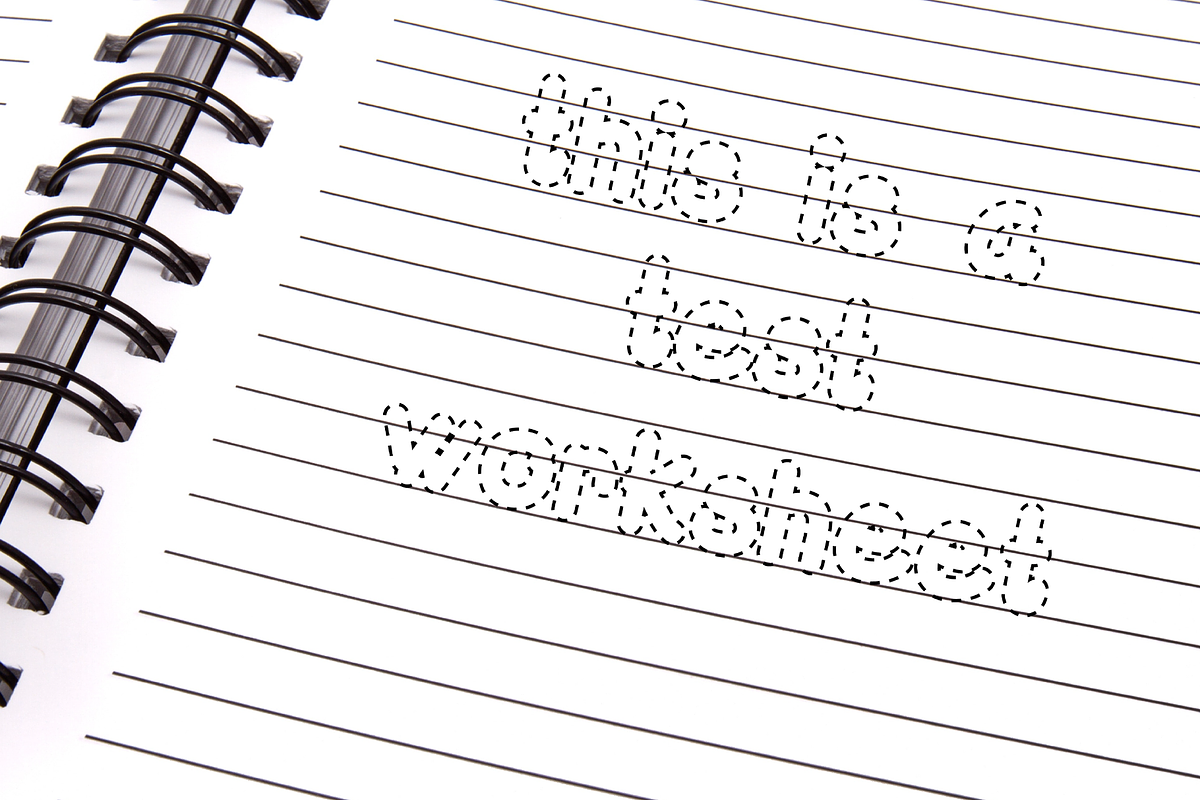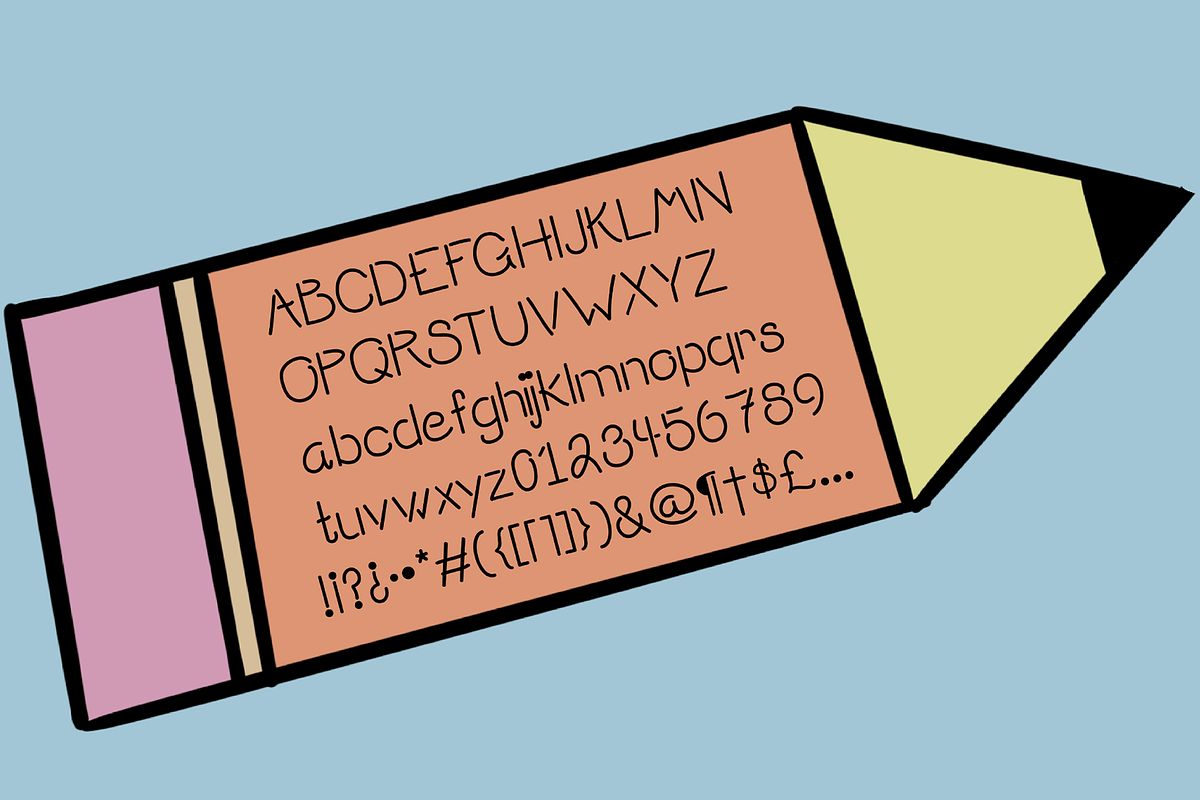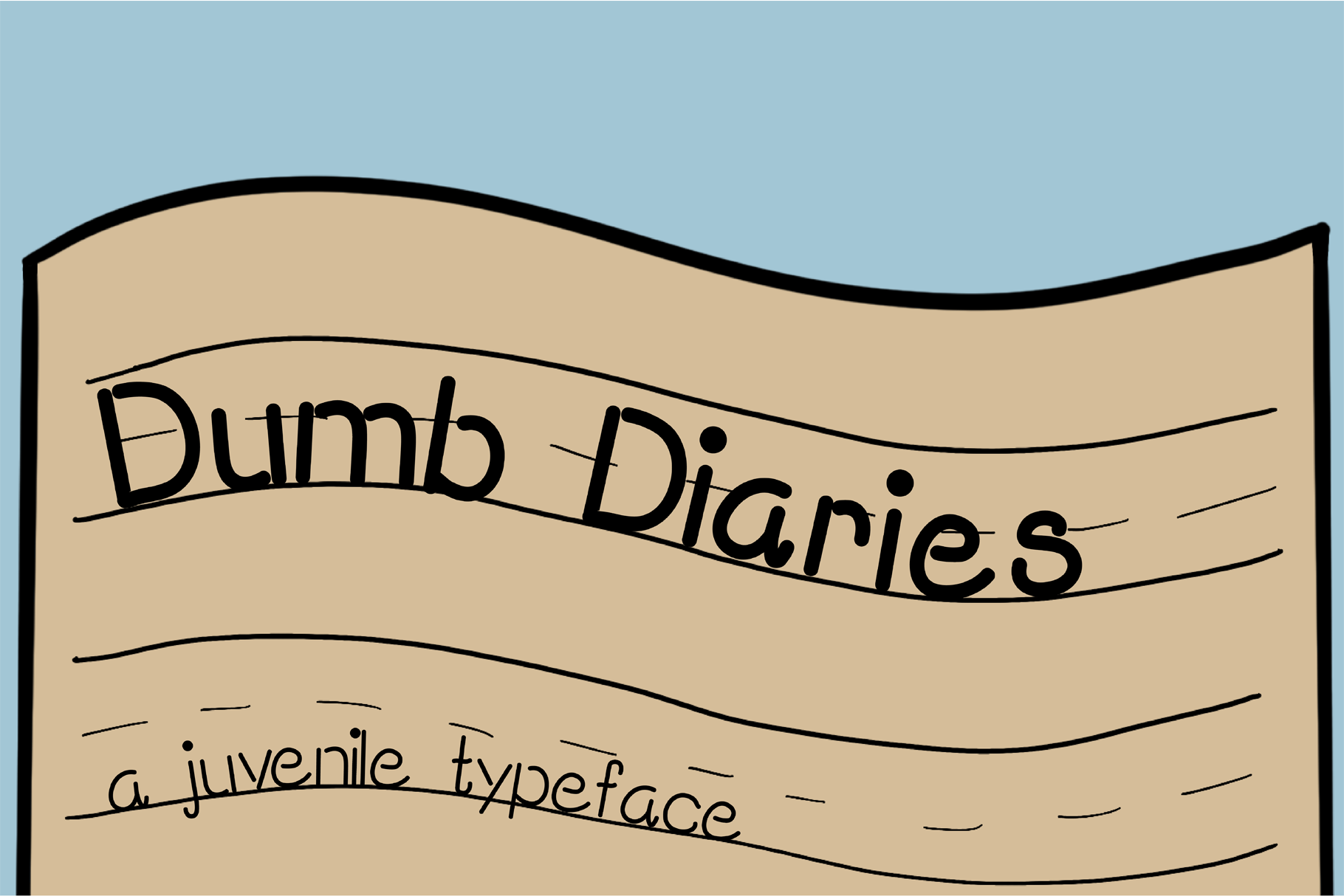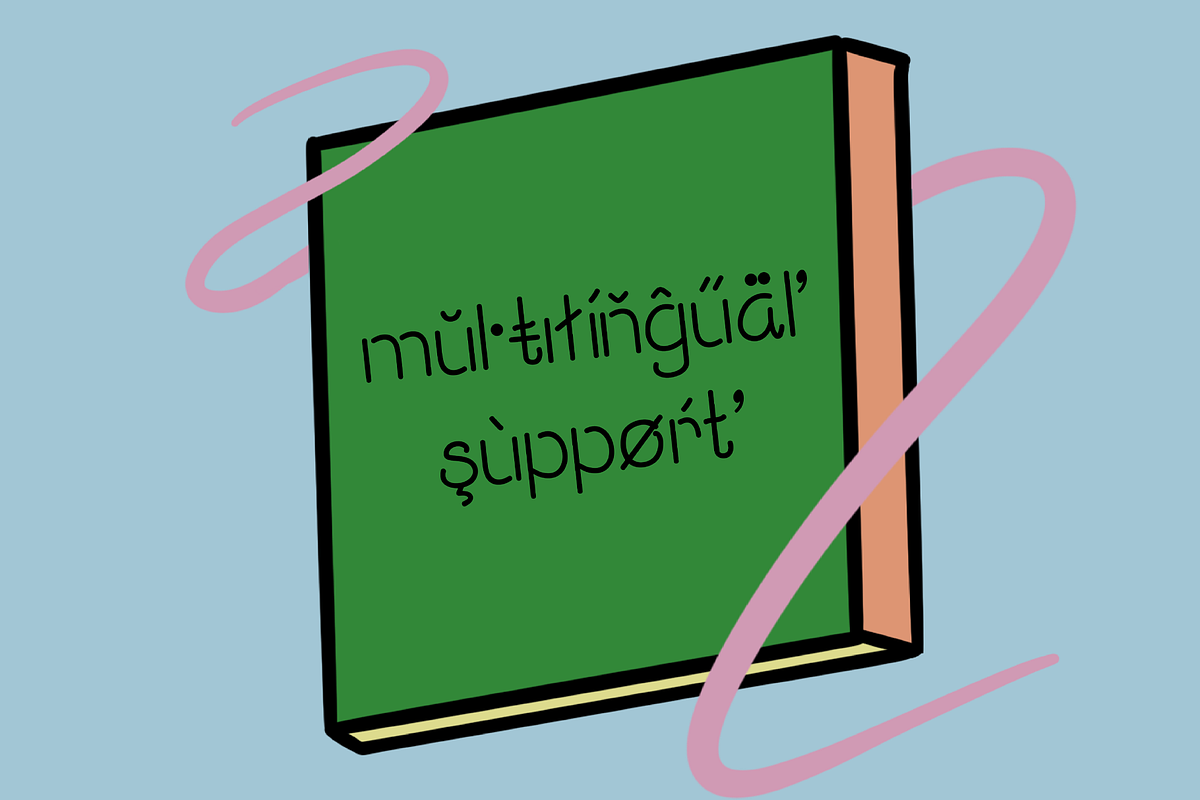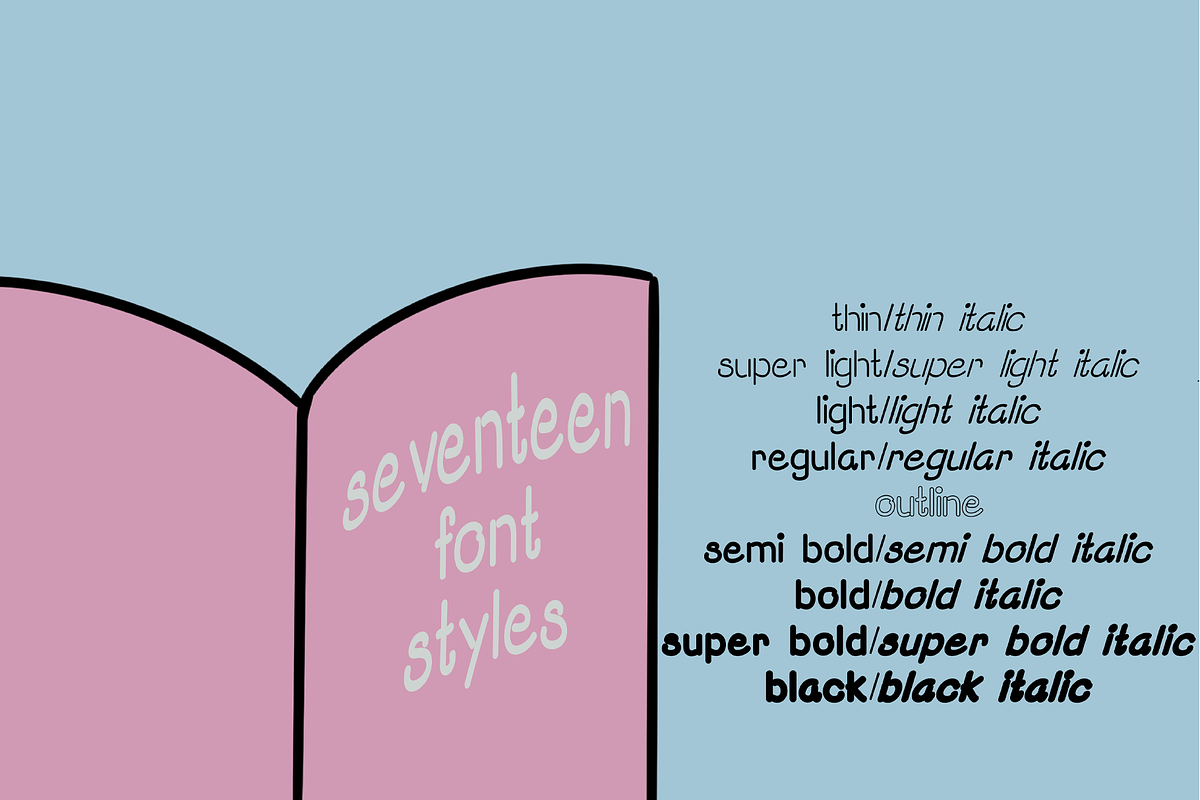
Dumb Diaries Display Typeface
The Dumb Diaries Typeface includes seventeen font styles that can cater to any type of project. It has a youthful flair that can bring personality to any project.
Use for young projects, especially worksheets, school projects, children's and teen's books, and anything else juvenile. Also great for use for feminine projects.
Included Uppercase, lowercase, punctuation, numerals, symbols, and multilingual support.